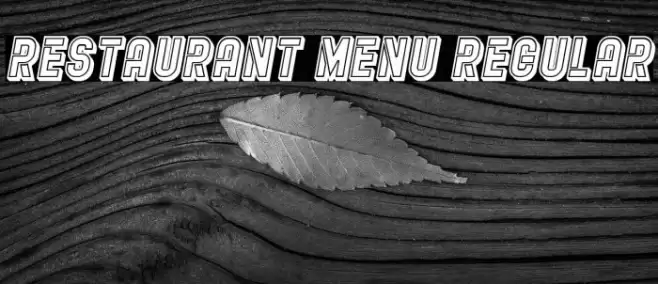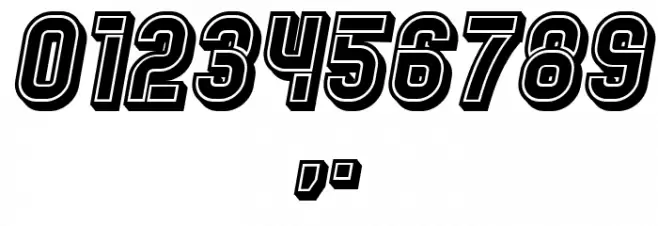
Restaurant Menu Regular Font
Restaurant Menu Regular Description
This font features a bold, decorative style with a strong, impactful presence. The characters are outlined, creating a three-dimensional effect that adds depth and visual interest. The uppercase letters are uniform in height and width, maintaining a consistent look throughout. The numbers and special characters follow the same design principles, ensuring a cohesive appearance. The font's boldness and unique style make it ideal for attention-grabbing headlines and titles. Its decorative nature suggests a playful and dynamic use, suitable for creative projects.
A bold, decorative font with an outlined, three-dimensional effect from Uncategorized fonts.
- Proposed Projects: Ideal for restaurant menus, posters, event flyers, and branding materials that require a bold and eye-catching design.